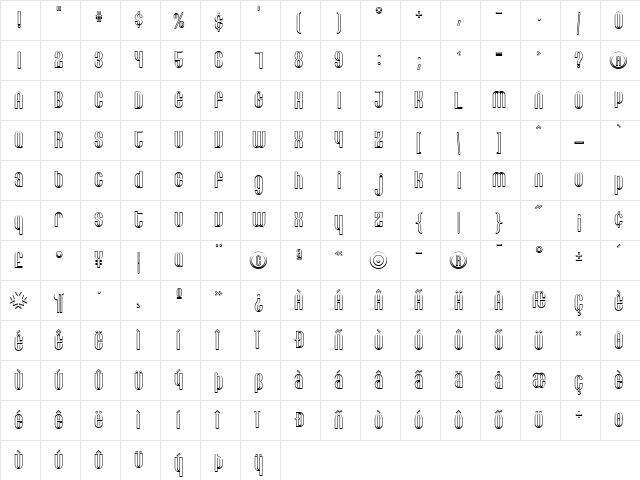
Lithia Regular
Design Context for Lithia Typeface
Lithia is a composed and adaptable typeface that performs quietly and consistently across a wide range of design contexts.